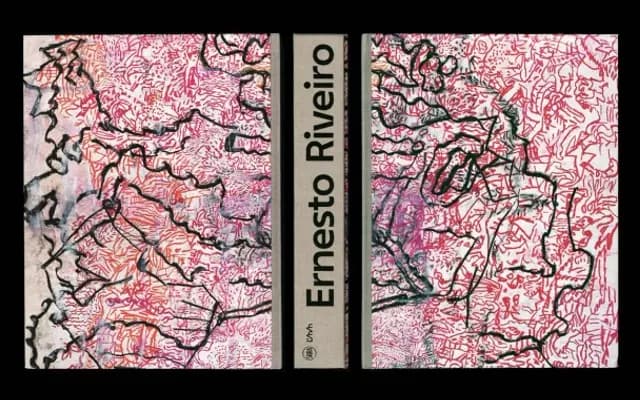
Eddi
b•v-h type · André Baldinger & Toan Vu-Huu · 2022
A geometric sans designed by André Baldinger and Toan Vu-Huu, originally created for the visual identity of a Swiss art school, with sharp triangular cuts as its defining formal gesture.
Developed initially for the édhéa (The Valais School of Art) in Switzerland, the family draws on Bauhaus formal geometry — triangle, square and circle — using sharp cuts and just-touching intersections in the counterforms as its distinguishing detail. The collection spans two subfamilies, Eddi and Eddi Grotesk, each available in four weights with matching italics. OpenType features are extensive, including multiple figure styles, circled and framed number sets, and alternate glyphs.
Described by the foundry as a geometric sans serif inspired by the formal heritage of the Bauhaus, with design elements rooted in the triangle, square and circle — placing it squarely in the geometric sans tradition.